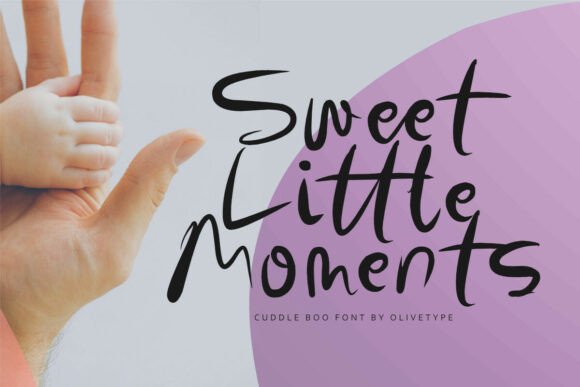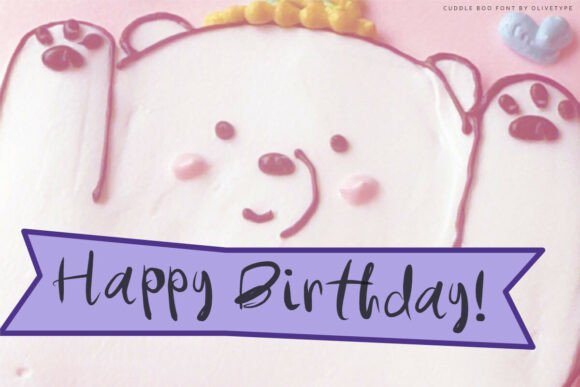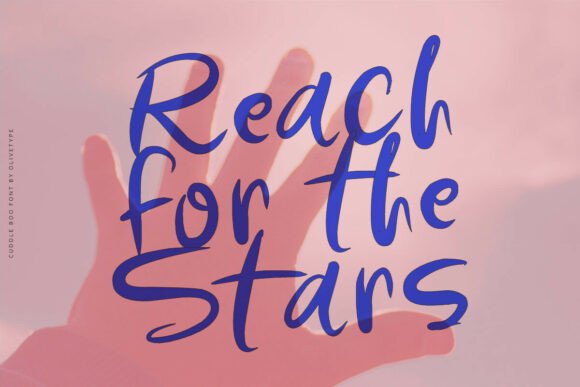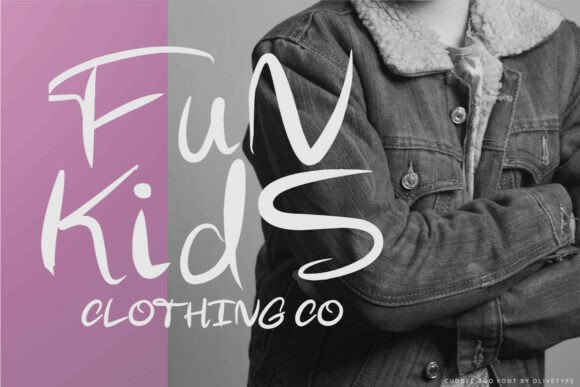
Cuddle Boo Font: The Sweetest Handwritten Script for Your Designs
Are you looking for a font that captures the warmth of love, innocence, and joyful little moments? Look no further than Cuddle Boo, a sweet and heart-melting handwritten script font that’s perfect for designs that celebrate affection, family, and childhood memories.
The Charm of Cuddle Boo
Cuddle Boo is designed to feel like a cozy hug in letterform. With its soft curves, bouncy baseline, and natural hand-drawn flow, this font is sure to bring a smile to anyone’s face. Every stroke carries a playful charm, making it perfect for designs that need a touch of whimsy and fun.
Perfect for a Variety of Designs
Cuddle Boo is a versatile font that can be used for a wide range of designs, including:
• Baby announcements: Create adorable birth announcements that set the tone for a lifetime of love and joy.
• Kids’ fashion branding: Add a touch of sweetness to your kids’ fashion brand with Cuddle Boo’s playful and charming lettering.
• Greeting cards: Create heartfelt greeting cards for special occasions like birthdays, weddings, and holidays.
• Social media posts: Add a personal touch to your social media posts with Cuddle Boo’s friendly and approachable style.
• Cute product packaging: Make your product packaging stand out with Cuddle Boo’s unique and eye-catching lettering.
What Makes Cuddle Boo Special
So, what sets Cuddle Boo apart from other fonts? Here are a few things that make it special:
• Soft curves and bouncy baseline: Cuddle Boo’s soft curves and bouncy baseline give it a natural, hand-drawn feel that’s full of personality.
• Playful charm: Every stroke of Cuddle Boo carries a playful charm that’s sure to delight your audience.
• Balanced readability and whimsy: Cuddle Boo’s smooth script style balances readability with a whimsical touch, making it perfect for both headlines and decorative text.
Why Designers and Crafters Love Cuddle Boo
Designers and crafters love Cuddle Boo for many reasons. Here are a few:
• Easy to read: Despite its playful style, Cuddle Boo is easy to read, making it perfect for designs that need to communicate a message.
• Versatile: Cuddle Boo can be used for a wide range of designs, from baby announcements to product packaging.
• Emotional connection: Cuddle Boo’s sweet and charming lettering creates an emotional connection with your audience, making your designs more relatable and memorable.
How to Use Cuddle Boo in Your Designs
Using Cuddle Boo in your designs is easy. Here are a few tips to get you started:
• Pair it with other fonts: Cuddle Boo pairs well with other fonts, so feel free to experiment with different combinations to find the perfect look for your design.
• Use it for headlines and decorative text: Cuddle Boo’s smooth script style makes it perfect for headlines and decorative text.
• Experiment with colors and textures: Cuddle Boo looks great in a variety of colors and textures, so don’t be afraid to experiment and find the perfect look for your design.
Cuddle Boo is a sweet and charming handwritten script font that’s perfect for designers and crafters who want to add a touch of warmth and personality to their designs. With its soft curves, bouncy baseline, and playful charm, Cuddle Boo is sure to delight your audience and make your designs truly cherishable.
Whether you’re creating baby announcements, kids’ fashion branding, greeting cards, social media posts, or cute product packaging, Cuddle Boo is the perfect font for your design needs. So why wait? Give Cuddle Boo a try today and see the difference it can make in your designs!